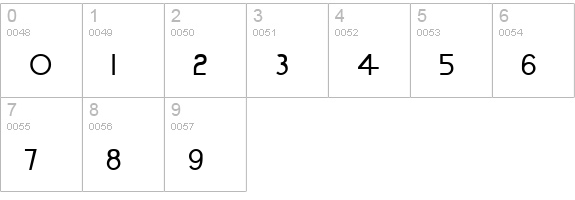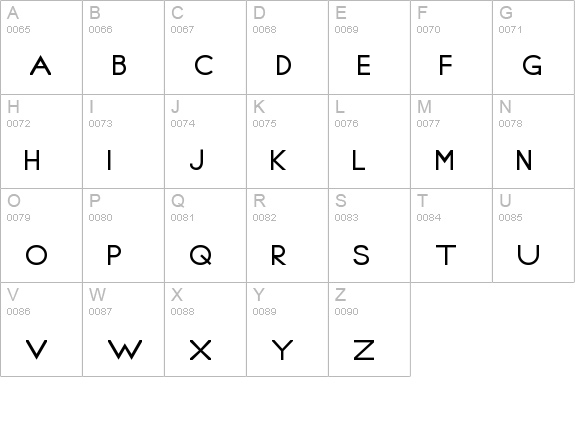
Azrael Font Details
Azrael font is a modern and sleek typeface that exudes elegance and sophistication. Its clean lines and sharp edges make it perfect for a wide range of design projects, from branding to editorial layouts. The font's versatility allows it to be used in various contexts, adding a touch of class to any design. What sets Azrael font apart is not only its aesthetic appeal but also its accessibility. This stunning font is available for free download at FontsMarket.com, making it easily accessible to designers and creatives looking to enhance their projects with a touch of style. Whether you're working on a website, poster, or logo, Azrael font is sure to elevate your design and leave a lasting impression. Get your hands on this exquisite font today and take your projects to the next level!